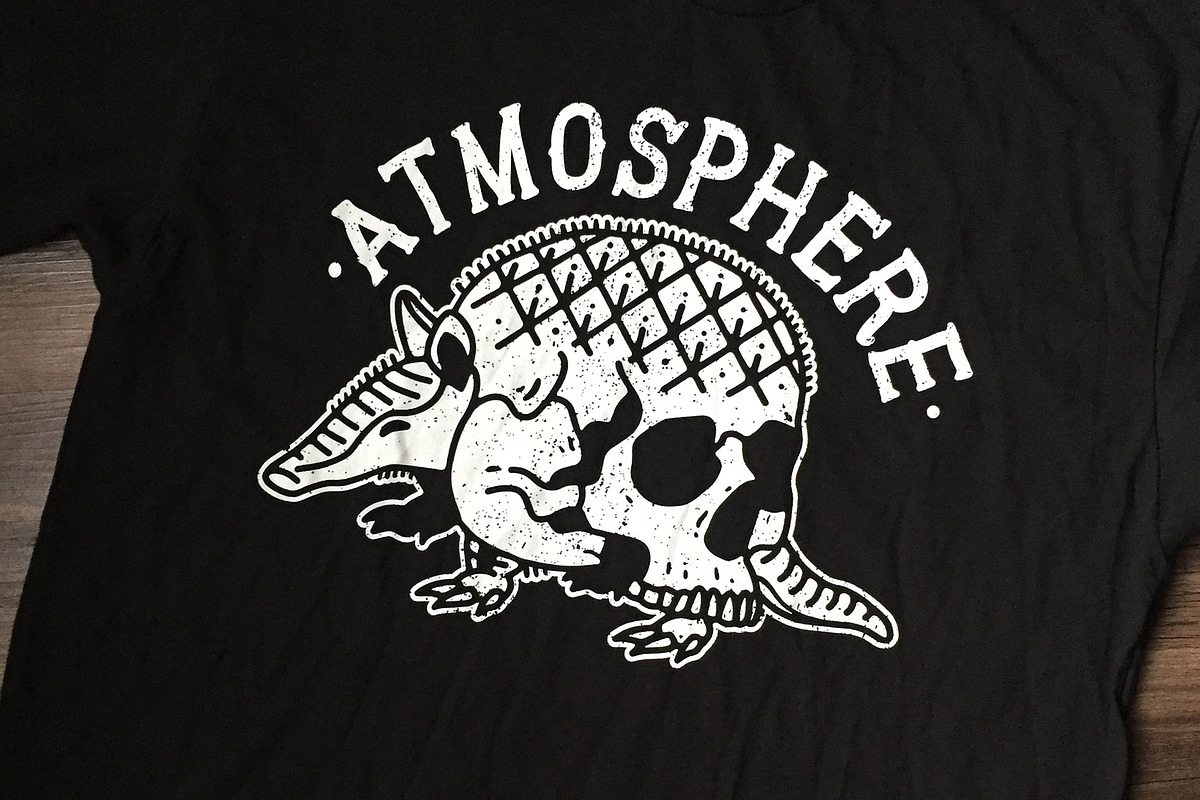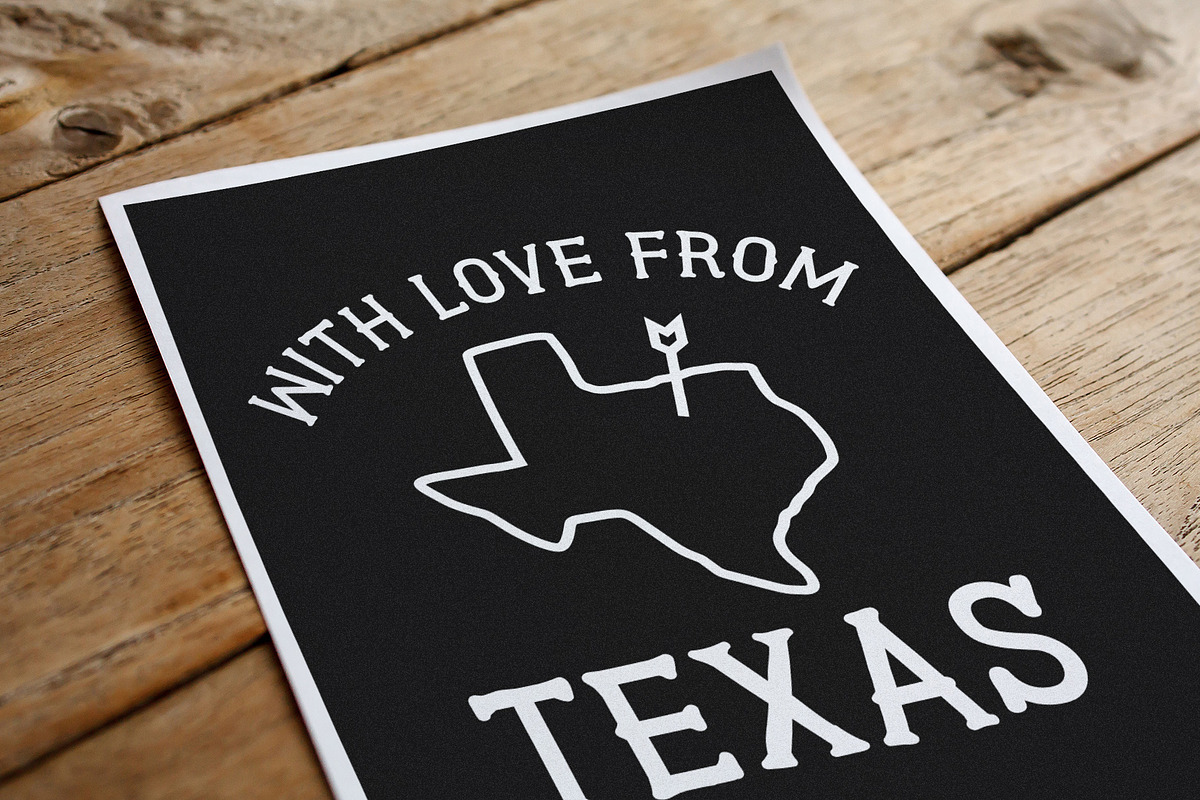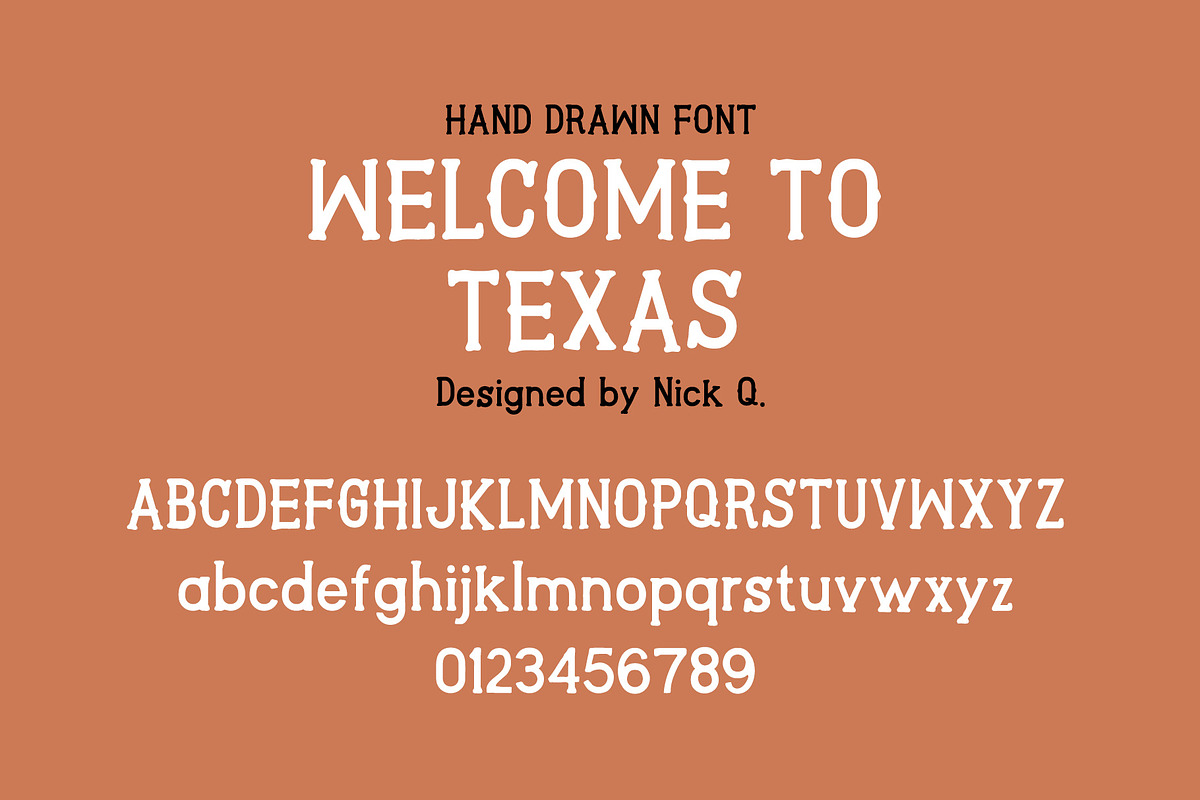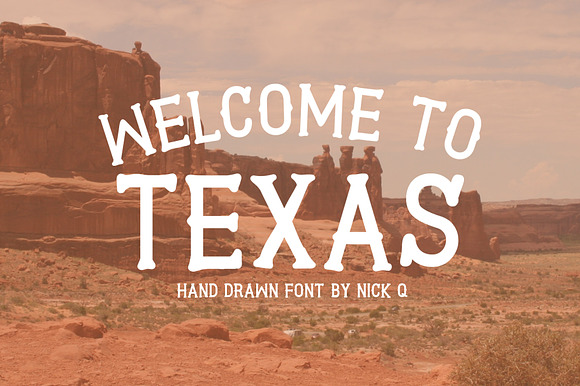
Welcome To Texas Font
Why Welcome To Texas Font is worth a look
Welcome To Texas Font by nickqtx fits naturally into Branding, posters, packaging, typography.